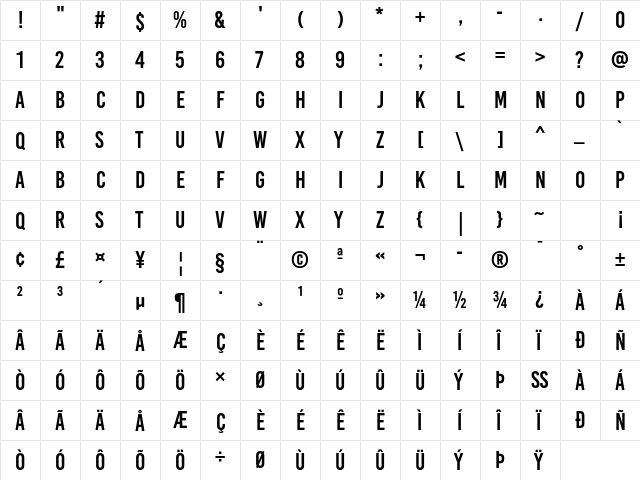
Bebas Kai Regular
| Foundry | Dharma Type |
| Designer | Ryoichi Tsunekawa |
Design Context for Bebas Kai Typeface
Bebas Kai is a composed and adaptable typeface that performs quietly and consistently across a wide range of design contexts.
Pro Tip: Pair Bebas Kai with a font of contrasting weight or personality to build a more expressive typographic hierarchy.